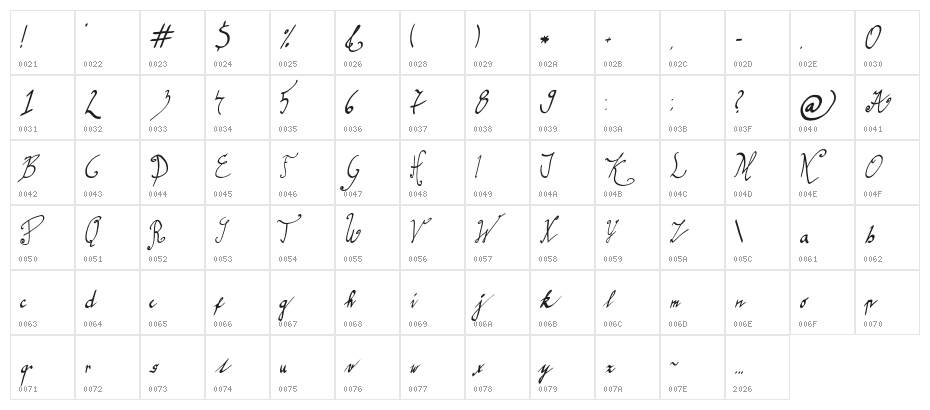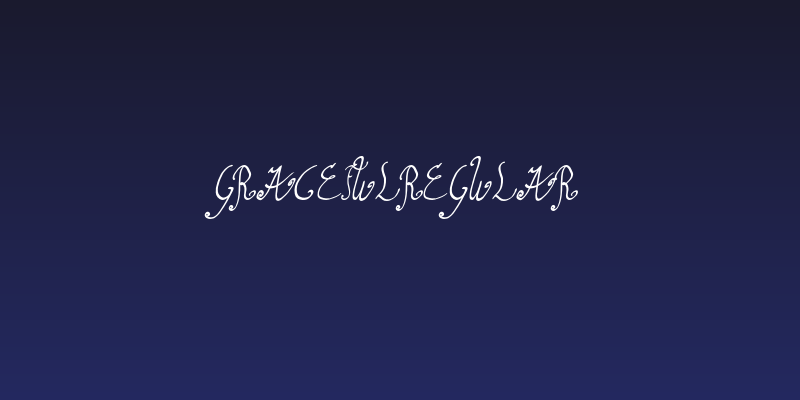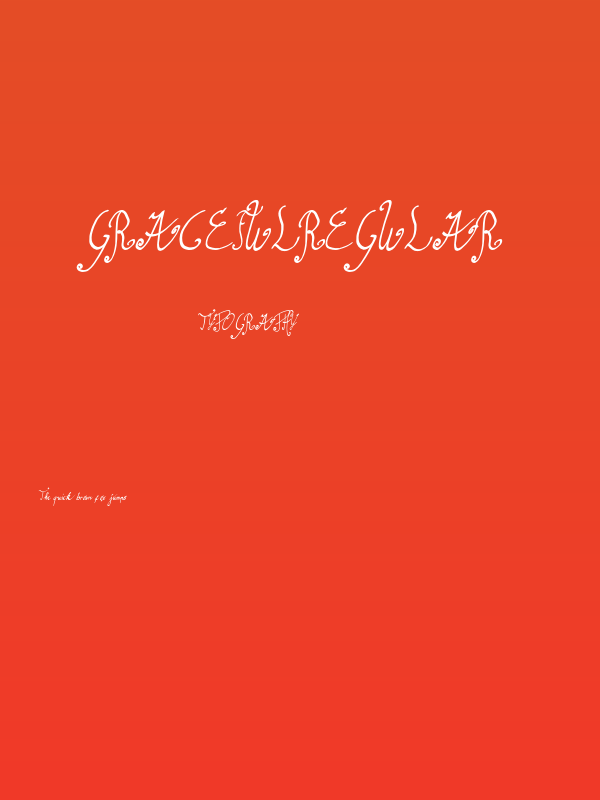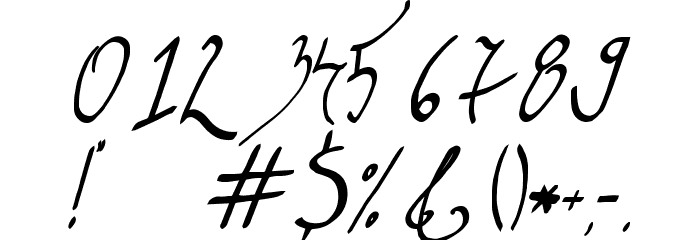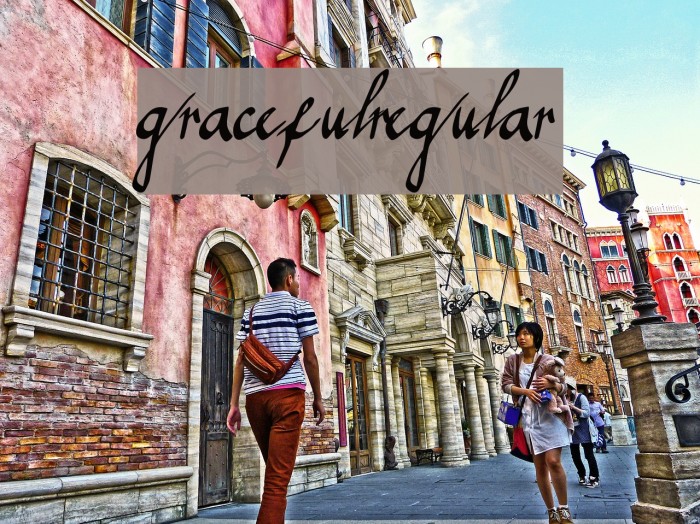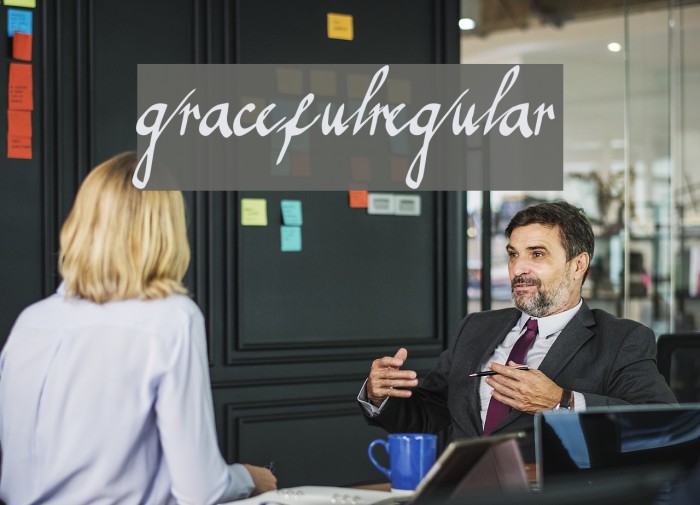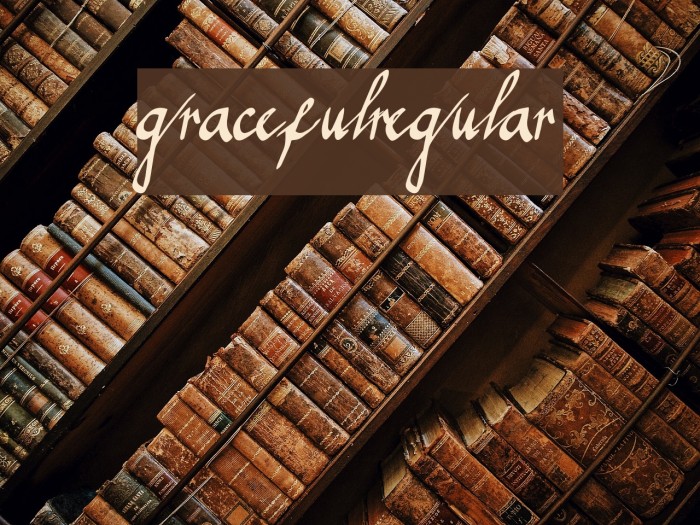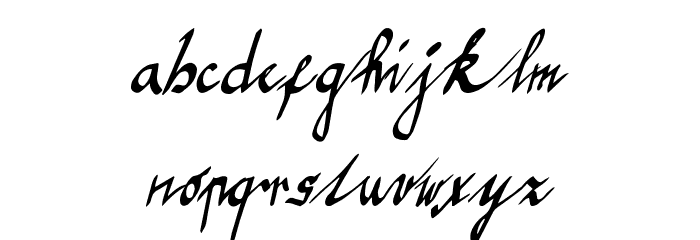
gracefulregular Font
gracefulregular Description
This font exudes elegance and sophistication with its flowing, cursive style. The uppercase letters are adorned with intricate loops and swirls, giving them a decorative flair. The lowercase characters maintain a consistent, graceful flow, enhancing readability while retaining an artistic touch. Numbers are uniquely styled, with some digits featuring distinctive curves and angles that add to the font's charm. Special characters are creatively integrated, complementing the overall aesthetic. This font is perfect for projects that require a touch of elegance and creativity, such as invitations, branding, and artistic designs.
| Proposed Projects | Ideal for wedding invitations, branding, artistic designs, and elegant stationery. |